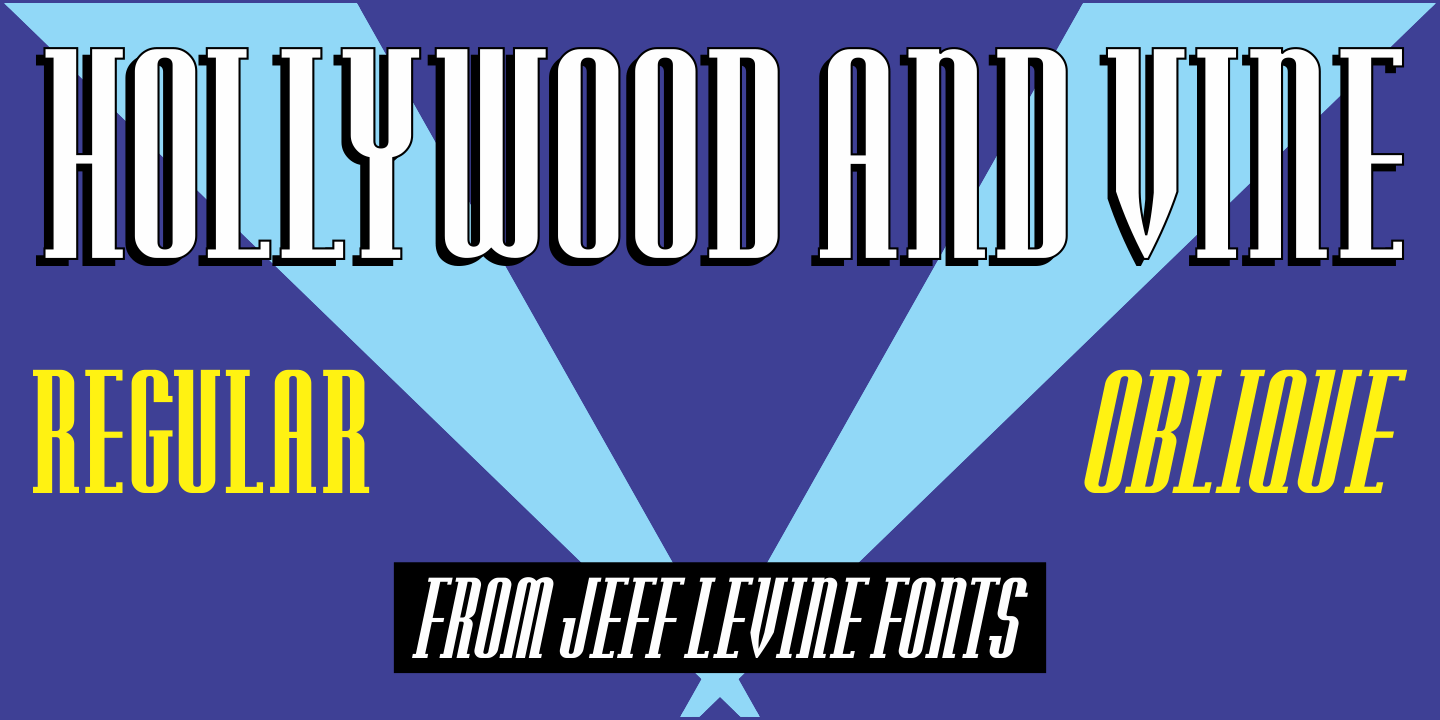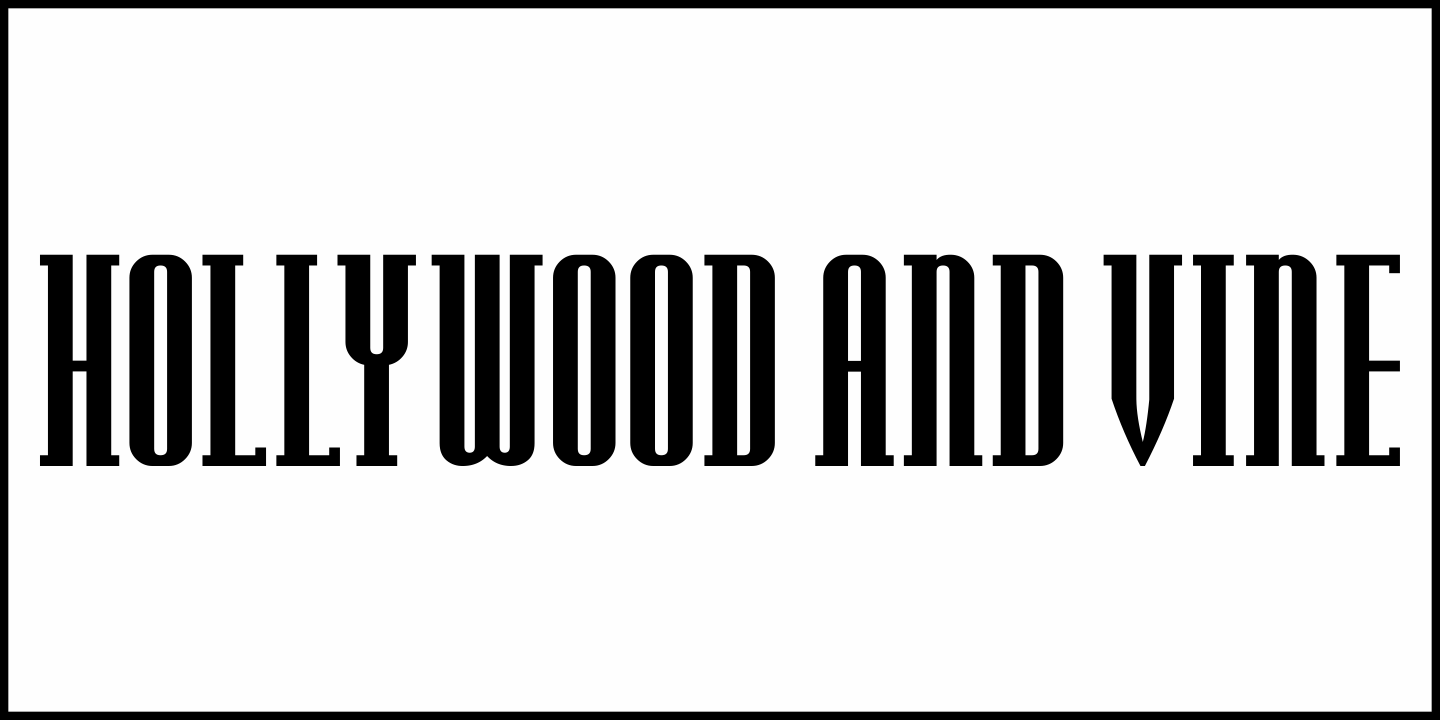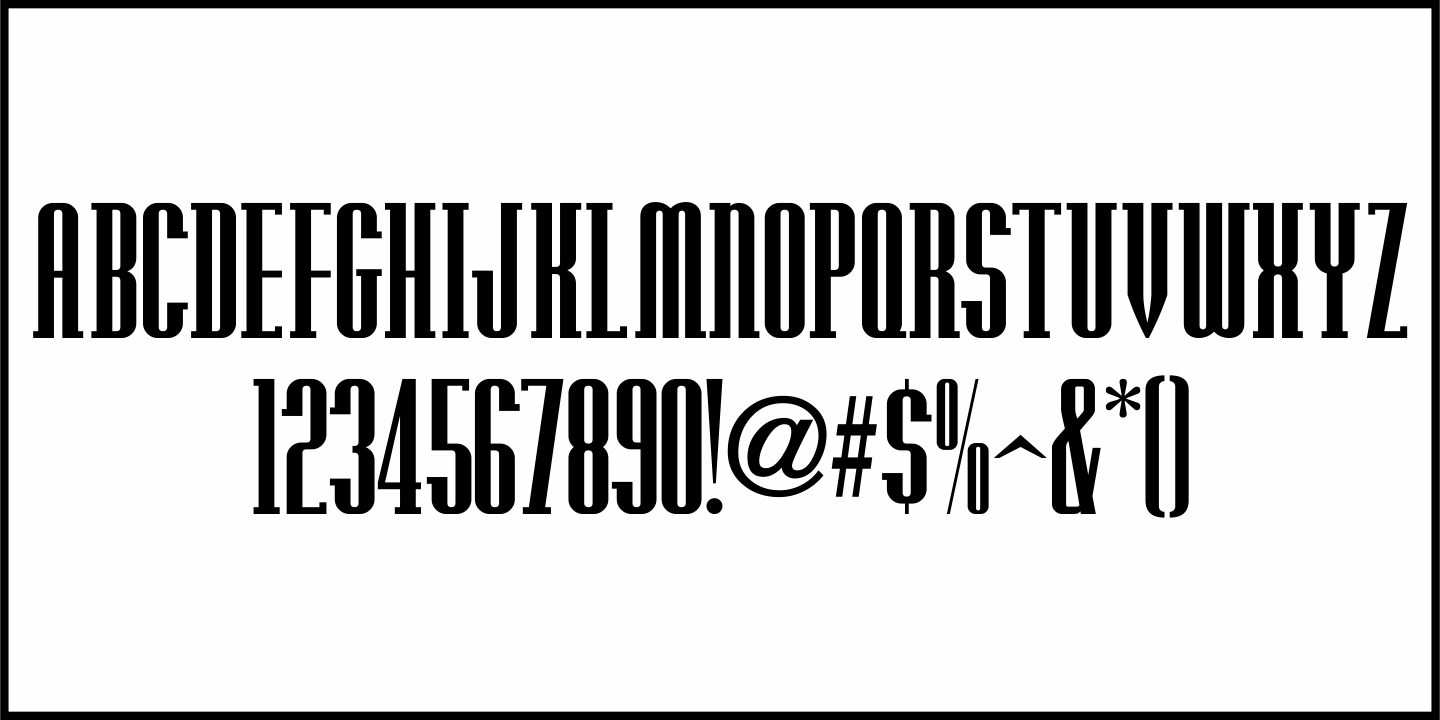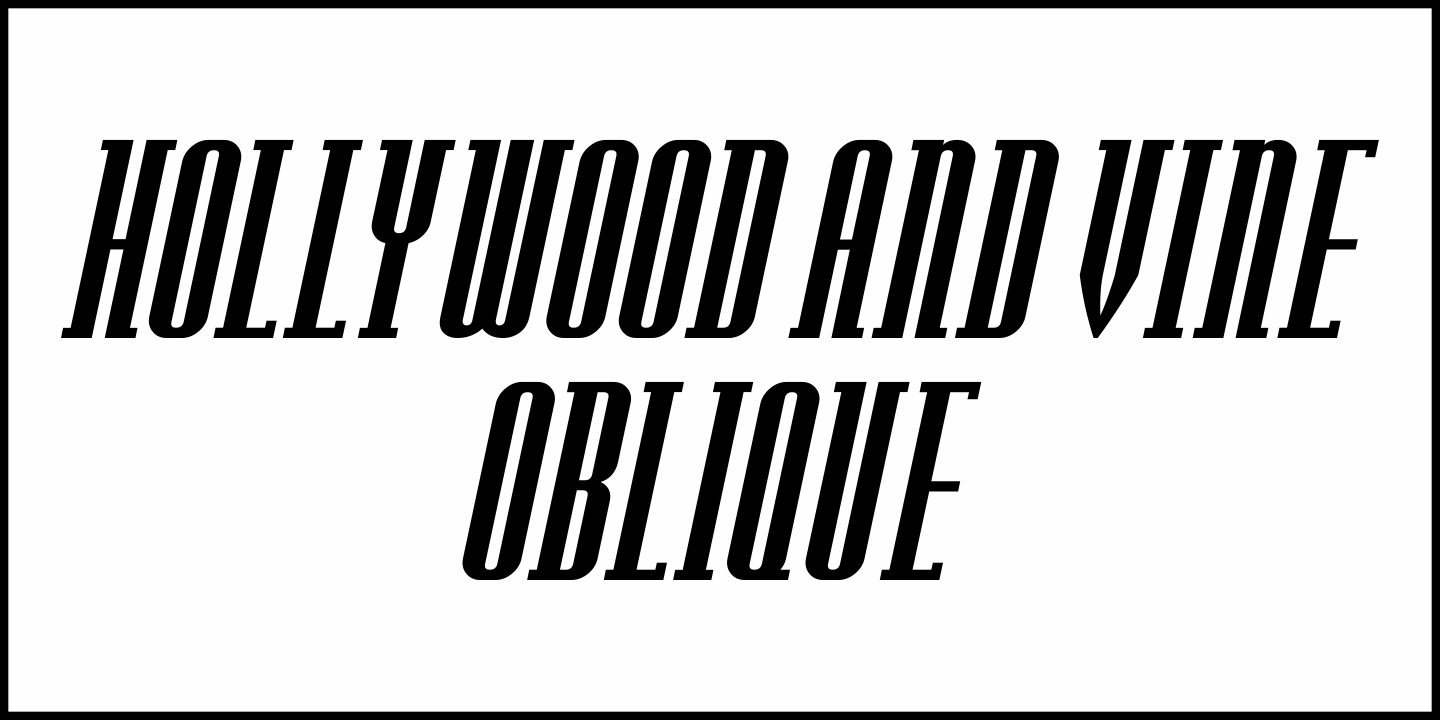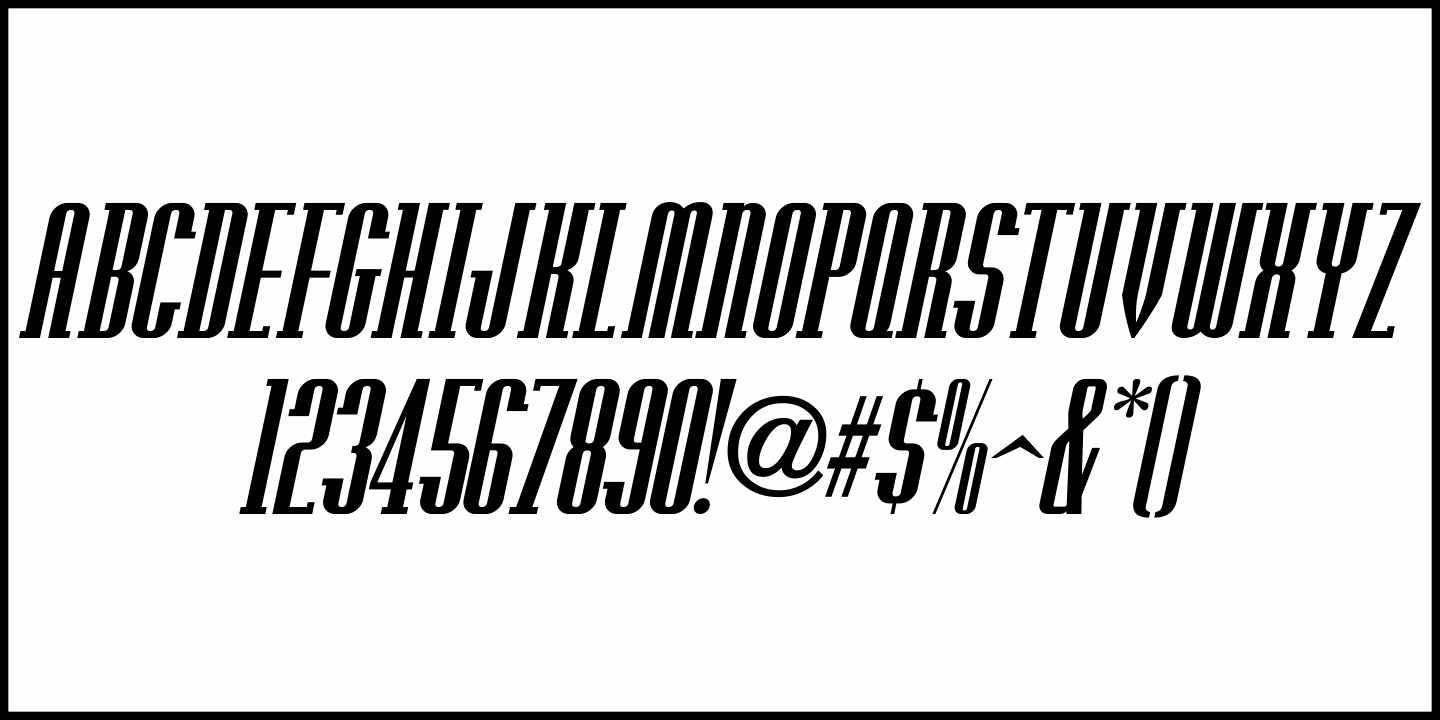
Hollywood and Vine
A condensed type design with Art Deco influences was used for titles within the February, 1938 issue of Modern Screen Magazine. The digital version is named for the famous 'Tinsel Town” street intersection.
Hollywood and Vine JNL is available in both regular and oblique versions.
Hollywood and Vine by Jeff Levine Fonts